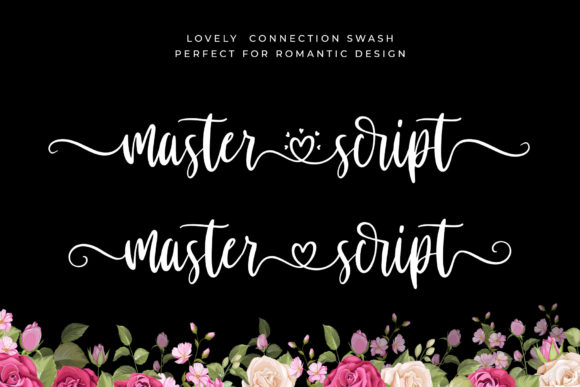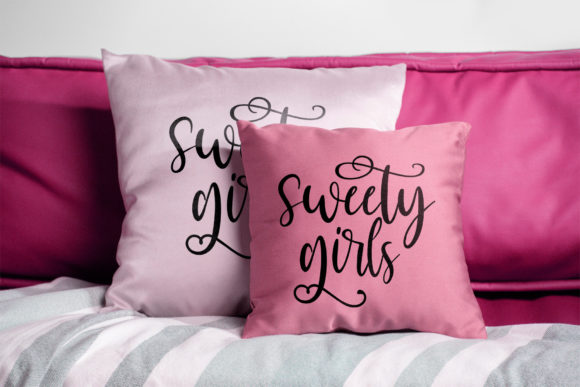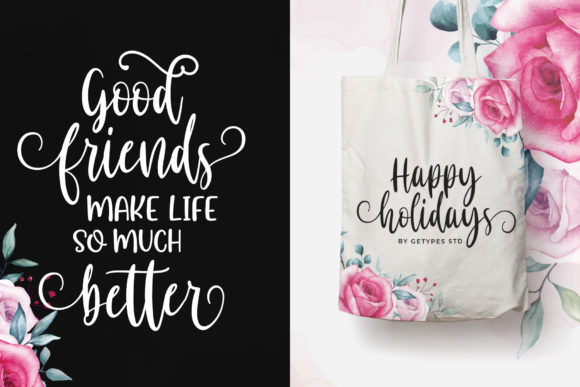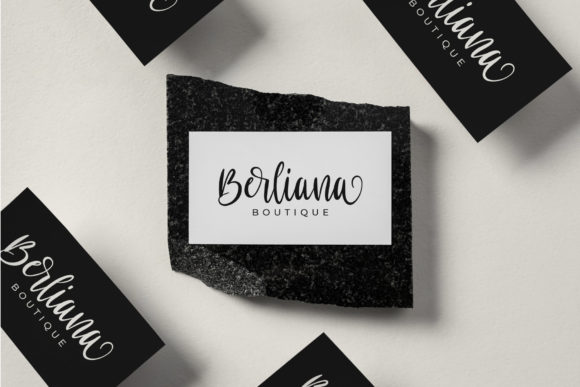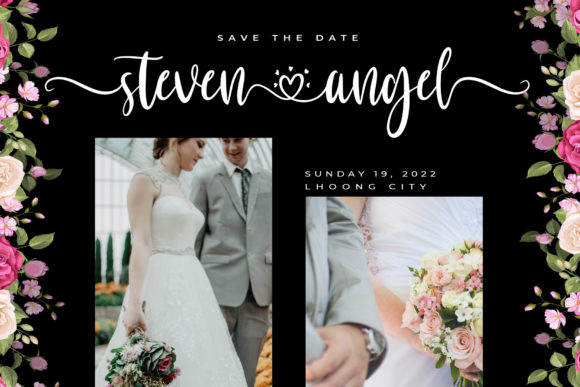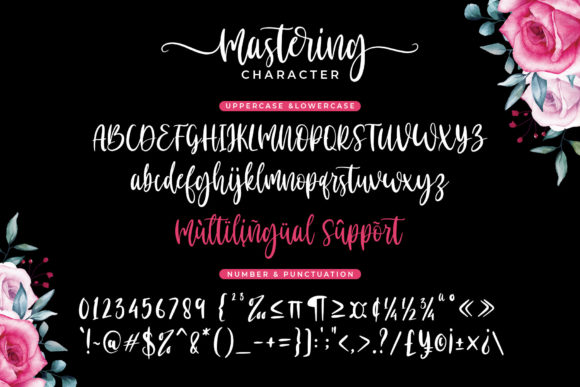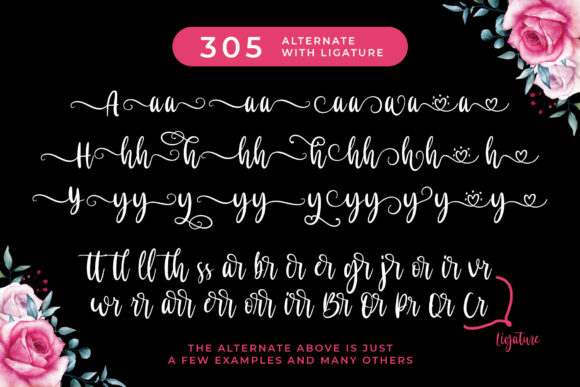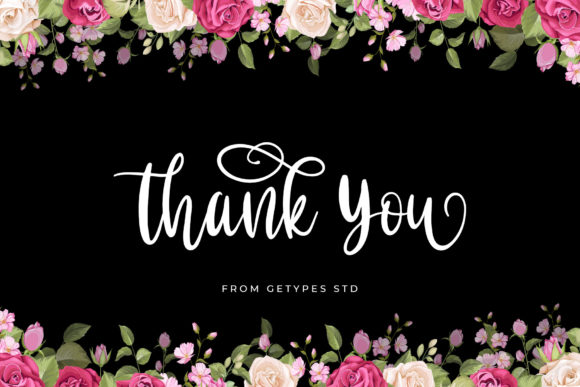
Mastering Font
About Mastering Font
Introducing Mastering, a captivating and romantic calligraphy typeface that adds an air of elegance to your design projects. With its charming characters that dance gracefully along the baseline, Mastering brings a touch of luxury and sophistication to any creative endeavor.
The fluid and ornate strokes of Mastering make it the perfect choice for projects that require a touch of romance and refinement. Its unique and exquisite design exudes a sense of timelessness, making it ideal for a variety of applications.
Imagine using Mastering for wedding invitations, where the delicate curves and flowing lines of the font set the tone for a dreamy and enchanting celebration. The font’s luxurious appearance adds an extra layer of elegance to the invitations, creating a memorable and captivating first impression.
For branding projects, Mastering adds a sense of prestige and allure. Whether it’s logos, labels, or packaging, the calligraphy typeface lends a sophisticated touch that instantly elevates the brand’s identity and resonates with a high-end audience.
Incorporating Mastering into your digital and print materials adds a romantic flair to your content. From social media graphics to quotes, posters, and beyond, the font’s graceful letterforms infuse your designs with a sense of beauty and charm.
One of the standout features of Mastering is its PUA encoding, which allows you to effortlessly access a treasure trove of amazing glyphs and ligatures. This feature empowers you to explore and experiment with various design possibilities, ensuring your projects are uniquely tailored to your vision.
Whether you’re creating wedding stationery, designing brand materials, or crafting captivating visuals, Mastering is a calligraphy typeface that will truly shine. Its romantic and sweet character, combined with the luxury it exudes, makes it a font that will add a touch of magic to any design project you embark upon.